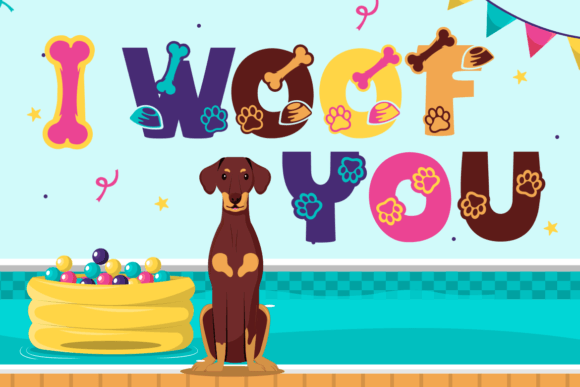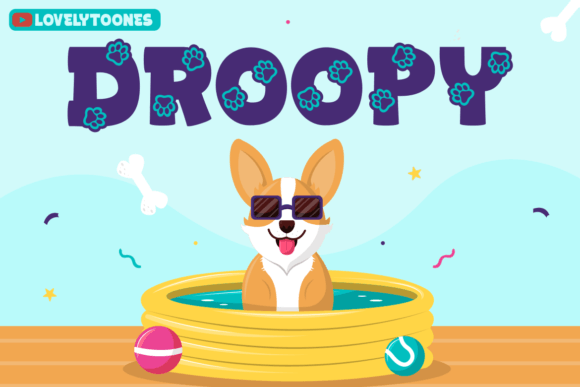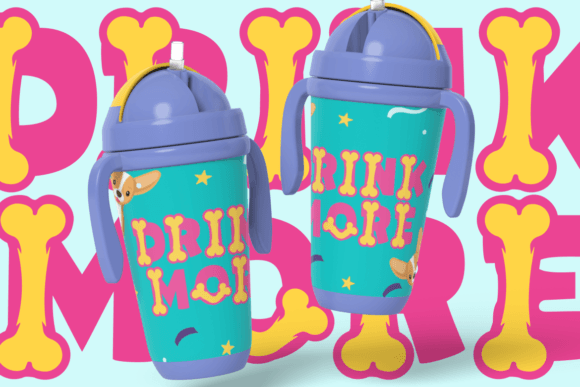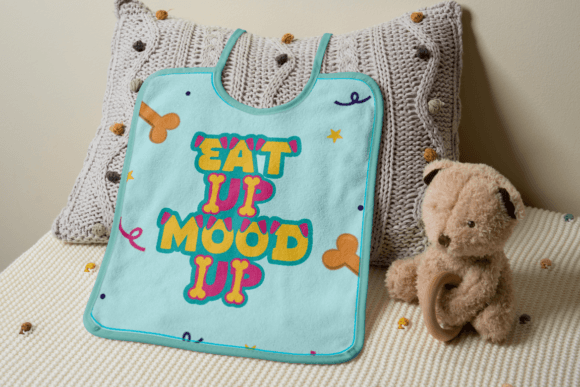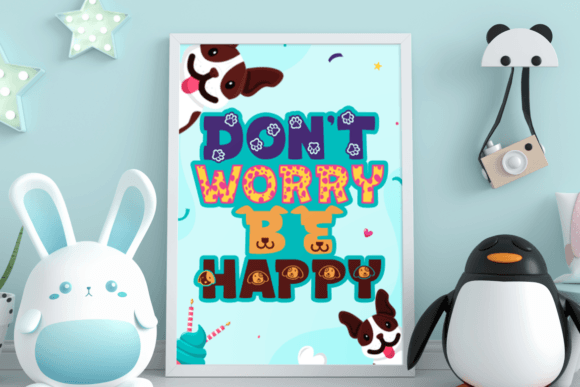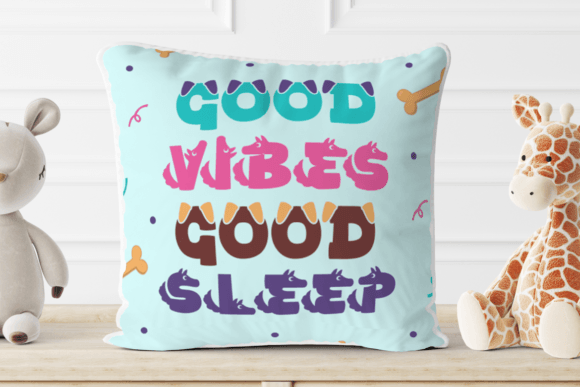
Unleash Your Creativity with Bark Type Font: The Playful and Bold Typeface Inspired by Dogs
Are you a designer, crafter, or creative enthusiast looking for a font that captures the playful and loving spirit of dogs? Look no further than the Bark Type Font, a quirky and charming typeface that is sure to make your projects stand out. In this article, we’ll introduce you to the Bark Type Font, exploring its unique features, versatility, and the various applications where it can shine.
Introducing Bark Type Font
The Bark Type Font, also known as “Bark Type – Quirky Dog Font,” is a delightful and bold typeface that draws inspiration from man’s best friend – dogs. This fun and thick lettered font is crafted to evoke the playful, friendly, and adventurous nature of our canine companions. With nine carefully designed variations, Bark Type offers a range of creative possibilities for designers, crafters, and anyone looking to add a touch of whimsy to their work.
Key Features of Bark Type Font
• Playful and Bold Design: Each letter in the Bark Type Font is meticulously crafted to reflect the fun and lively personality of dogs, making it perfect for projects that require a friendly and approachable tone.
• Nine Variations: The font comes in nine different styles, allowing you to experiment with various combinations to achieve the desired look for your project.
• Versatility: Whether used alone or in combination with other fonts, Bark Type promises to deliver visual appeal and flexibility, making it suitable for a wide range of applications.
Applications of Bark Type Font
The Bark Type Font is incredibly versatile and can be used in various contexts, including:
• Children’s Themes: Create engaging and fun content for kids with a font that speaks directly to their sense of adventure and love for animals.
• Crafting: Add a personal touch to your handmade crafts, such as DIY projects, with a font that exudes warmth and personality.
• Invitation Cards: Design eye-catching invitations for pet-related events or children’s parties that will surely capture the attention of your guests.
• Packaging: Stand out in the market with packaging that features a unique and memorable font, perfect for pet food, toys, or accessories.
• Posters: Create visually appealing posters for animal shelters, pet stores, or dog parks that convey a sense of fun and community.
• Business Branding: Establish a strong brand identity for pet-related businesses with a font that communicates friendliness and approachability.
• Greeting Cards: Design heartfelt greeting cards for dog lovers that will surely resonate with the recipient.
• Stickers: Create fun and colorful stickers for kids or pet-related products that feature a playful and engaging font.
• Children’s Books and Magazines: Bring stories to life with a font that is both engaging and easy to read, perfect for children’s literature.
Why Choose Bark Type Font?
In a world where fonts are plentiful, the Bark Type Font stands out for its unique blend of playfulness and boldness. Here are a few reasons why designers and crafters should consider adding Bark Type to their toolkit:
• Distinct Design: The font’s design ensures that it stands out in any context related to animals or specifically dogs, making it a go-to choice for projects that require a unique touch.
• Easy to Read: Despite its playful nature, the Bark Type Font remains clear and easy to read, making it suitable for both digital and print applications.
• Infused with Personality: Every letter is infused with elements that echo the playful and loving nature of puppies, adding a delightful touch to your creative projects.
Font Name Bark Type Font
Author putracetol
The Bark Type Font is a delightful addition to any designer’s or crafter’s toolkit. Its playful, bold, and charming design makes it perfect for a wide range of applications, from children’s themes to business branding. With its versatility, distinct design, and ease of use, Bark Type promises to bring a fresh and exciting touch to your creative projects. So why wait? Unleash your creativity with the Bark Type Font and let the playful spirit of dogs inspire your next masterpiece.